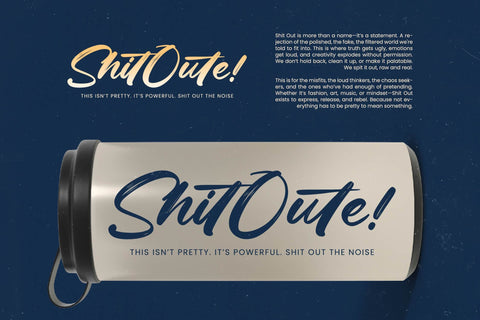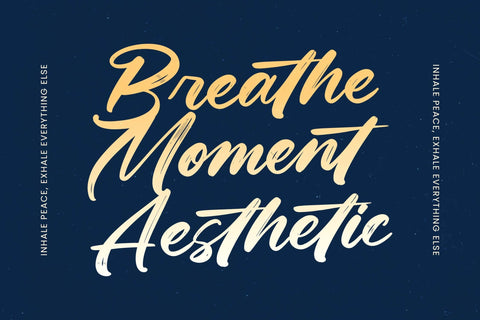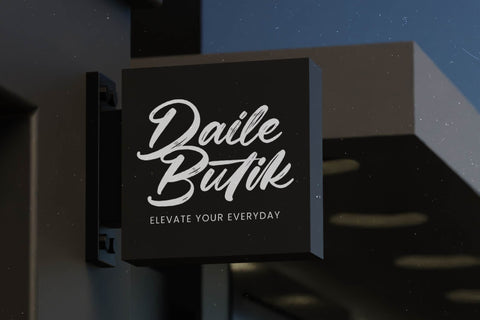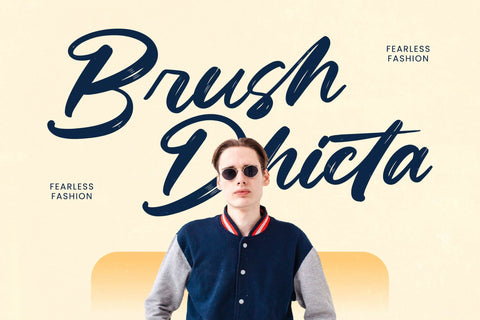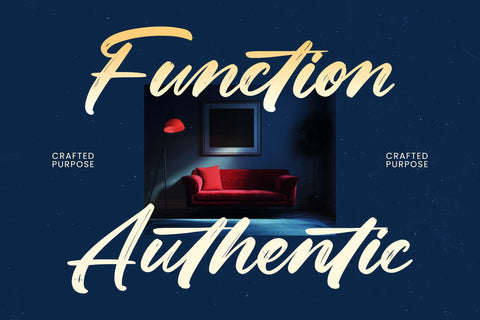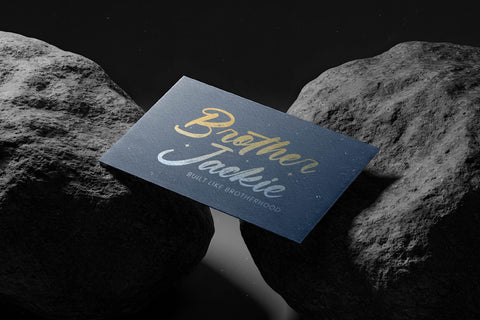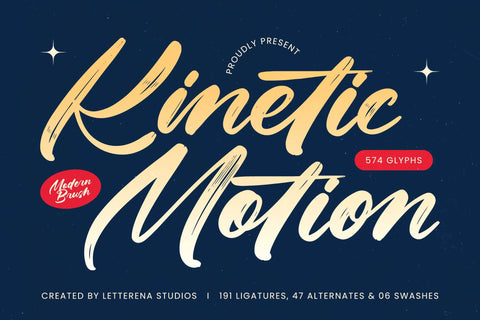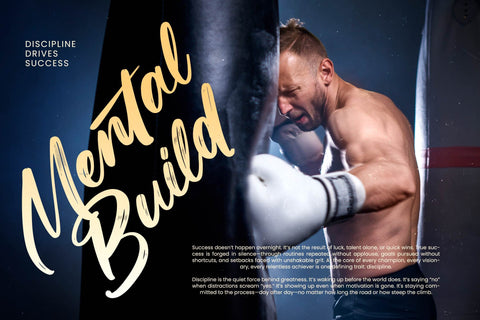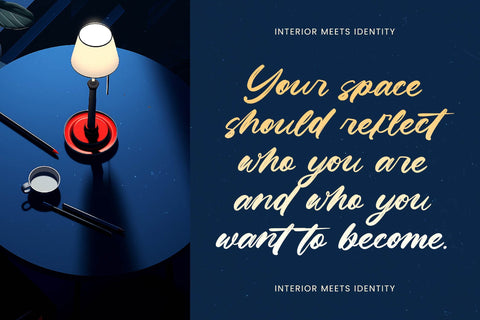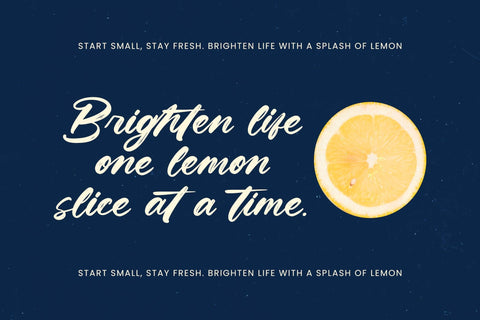
Kinetic Motion - Modern Brush Font
Kinetic Motion - Modern Brush Font , from Letterena, is a Luxury Script font, suitable for any projects such as: logos, branding projects, homeware designs, product packaging, mugs, quotes, posters, shopping bags, t-shirts, book covers, name card, invitation cards, greeting cards, label, photography, watermark, special events, and all your other luxury and beautiful projects that need a Luxury Script taste.
• 191 Ligature 47 Alternate & 06 Swashes
• Uppercase and Lowercase
• Numerals
• Punctuations (OpenType Standard)
• Accents (Multilingual Characters)
• Ligatures and Alternative Style Stylistic Set